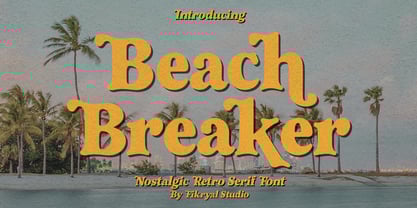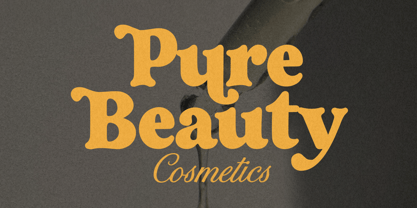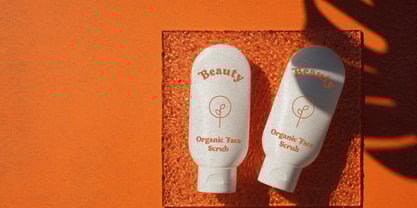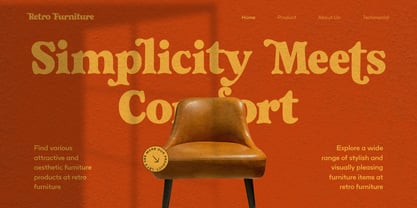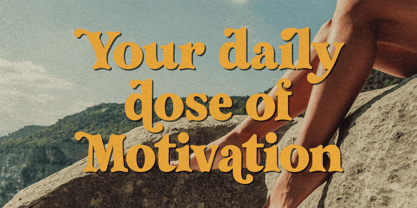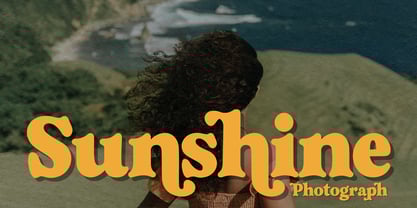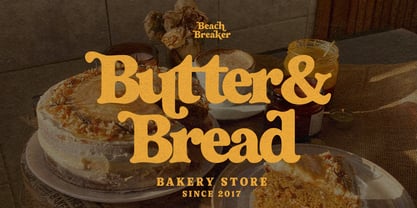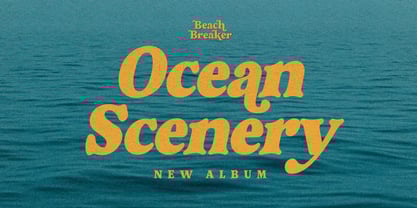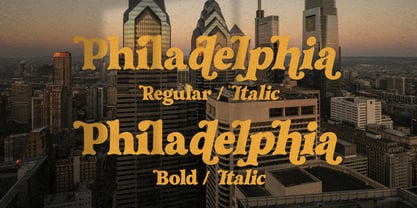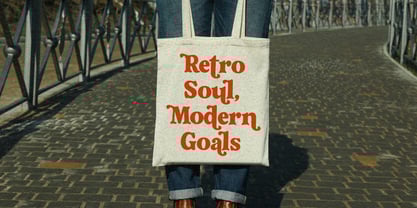
Beach Breaker
Die Schriftfamilie Beach Breaker wurde von Muhammad Fikry entworfen und von Fikryal veröffentlicht. Beach Breaker enthält 4 Stile und Familienpaketoptionen. Mehr über diese Familie
Beach Breaker is a bold and nostalgic Retro Serif Font that brings the groovy vibes of the ’70s into your modern design toolbox. With four stylish weights – Regular, Italic, Bold, and Bold Italic – this typeface offers rich versatility and flair for any creative project.
Designed with a touch of vintage charm and a modern twist, Beach Breaker is packed with stylistic alternates and unique ligatures, allowing you to mix and match characters to create a one-of-a-kind typographic aesthetic. Whether you’re designing branding, packaging, posters, logos, or social media content, this font will make your work stand out with a confident retro feel.
• 4 Weights: Regular, Italic, Bold, Bold Italic
• Uppercase & Lowercase
• Tons of Alternates and Discretionary Ligatures
• Multilingual Support
• Perfect for Logos, Headlines, Posters, Editorials, and Retro Branding
• Vintage & Retro Branding
• Apparel & Packaging Design
• Music Posters & Album Art
• Social Media Graphics
• Editorial and Magazine Layouts
Bring back the sunshine, the vinyl, and the surfboards – Beach Breaker is your perfect companion for bold and unforgettable retro design.